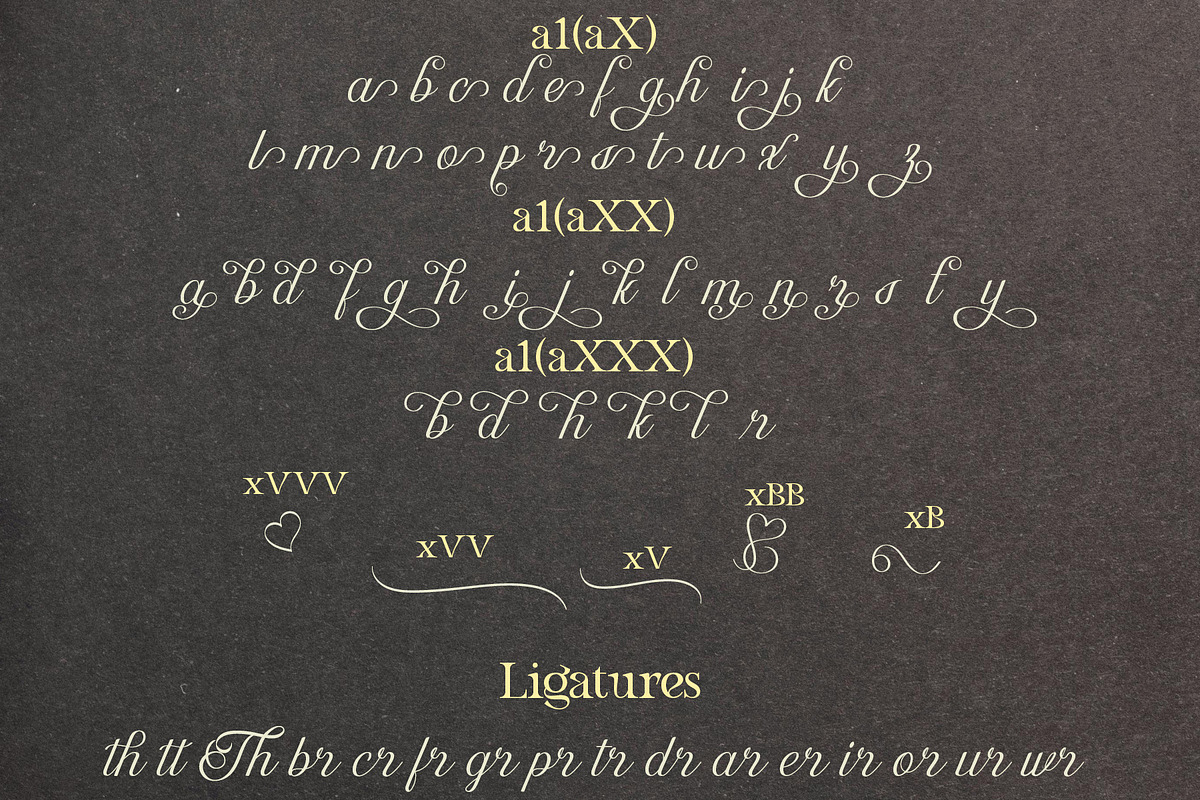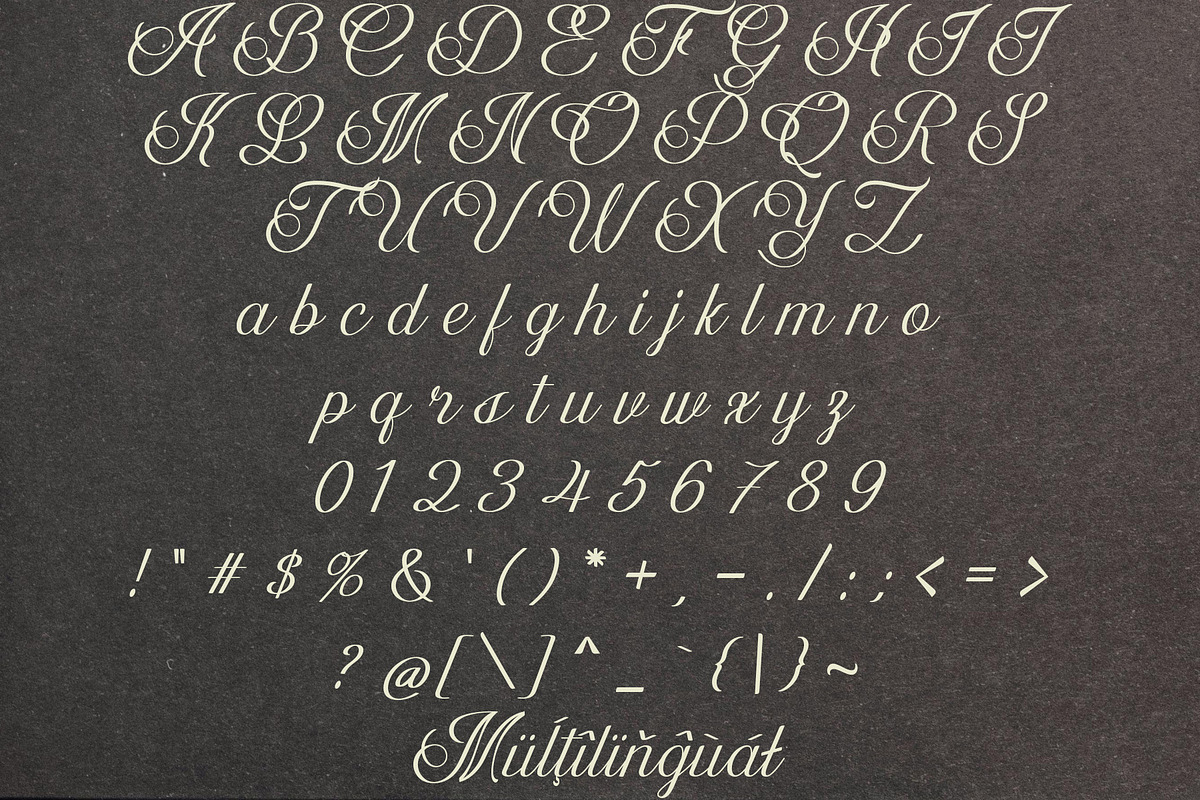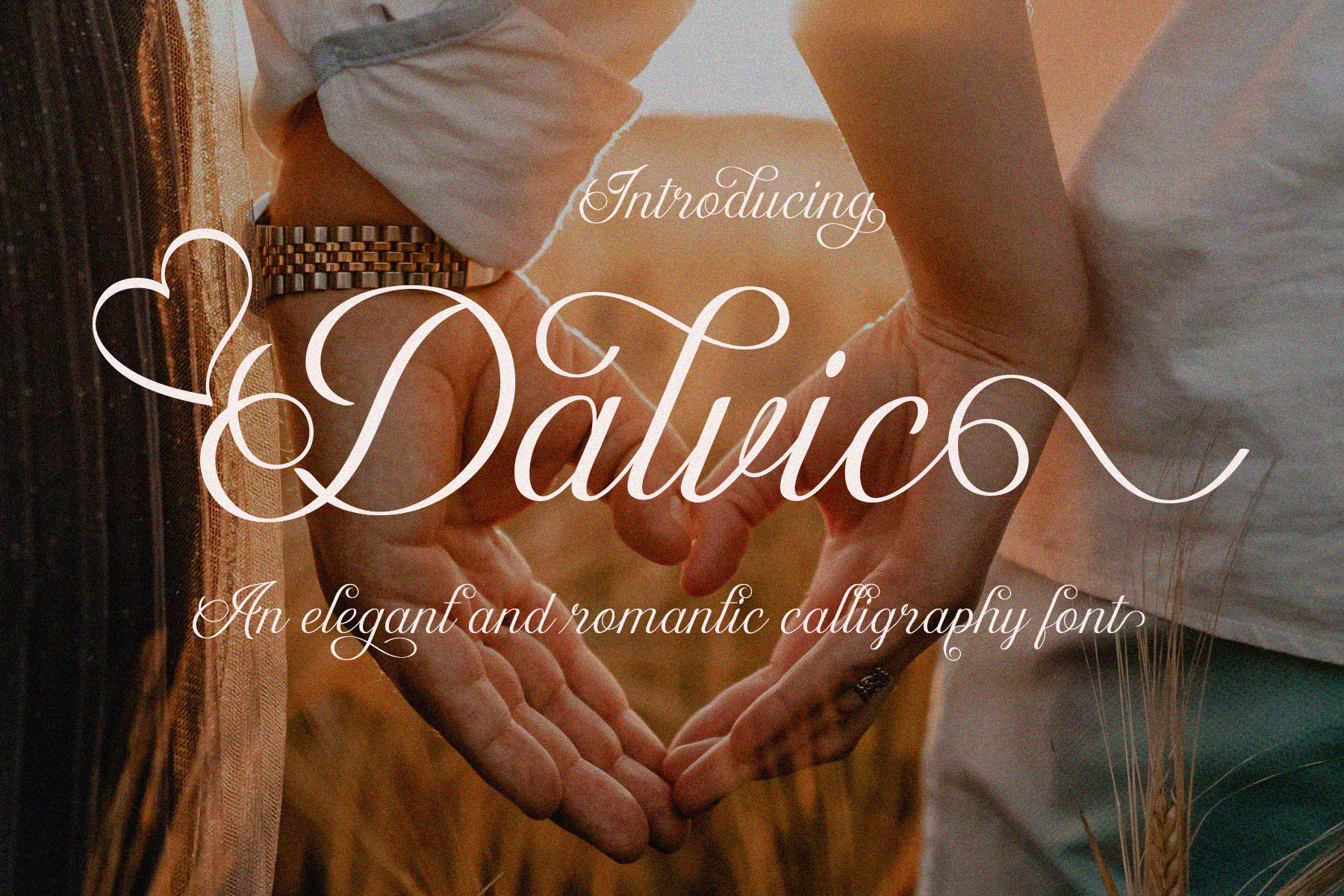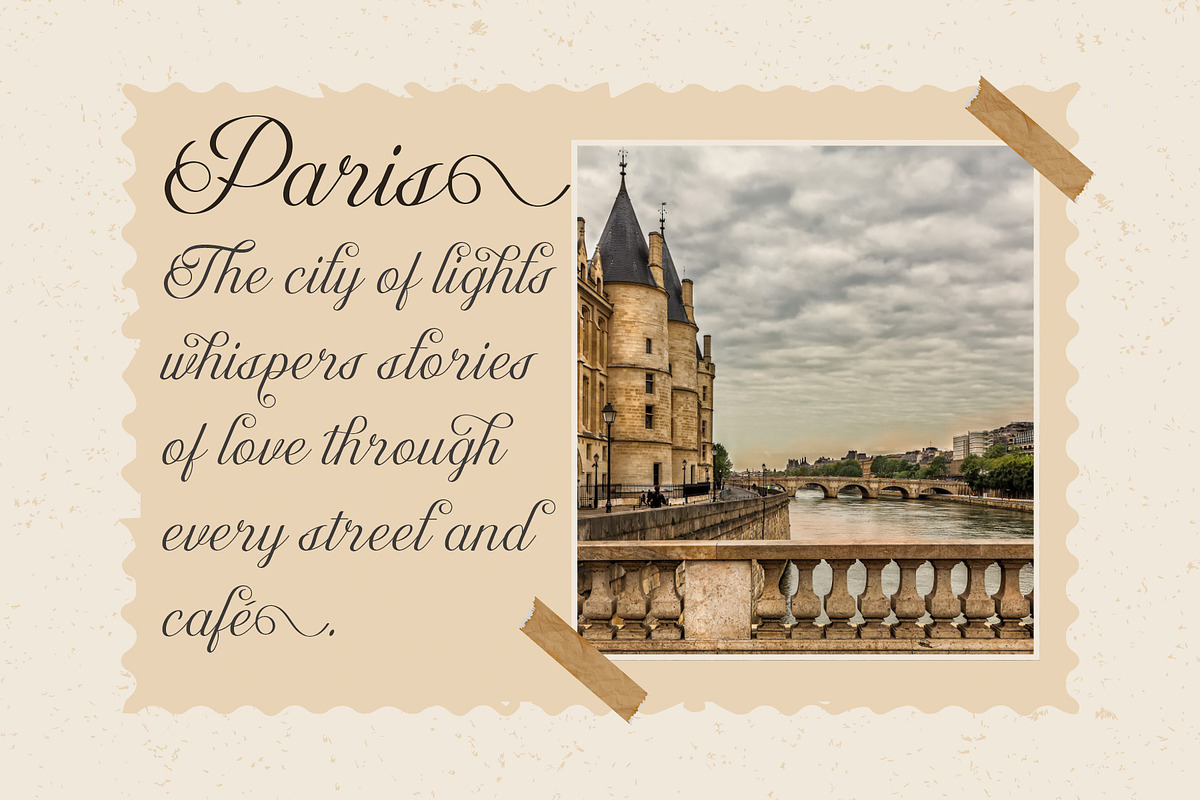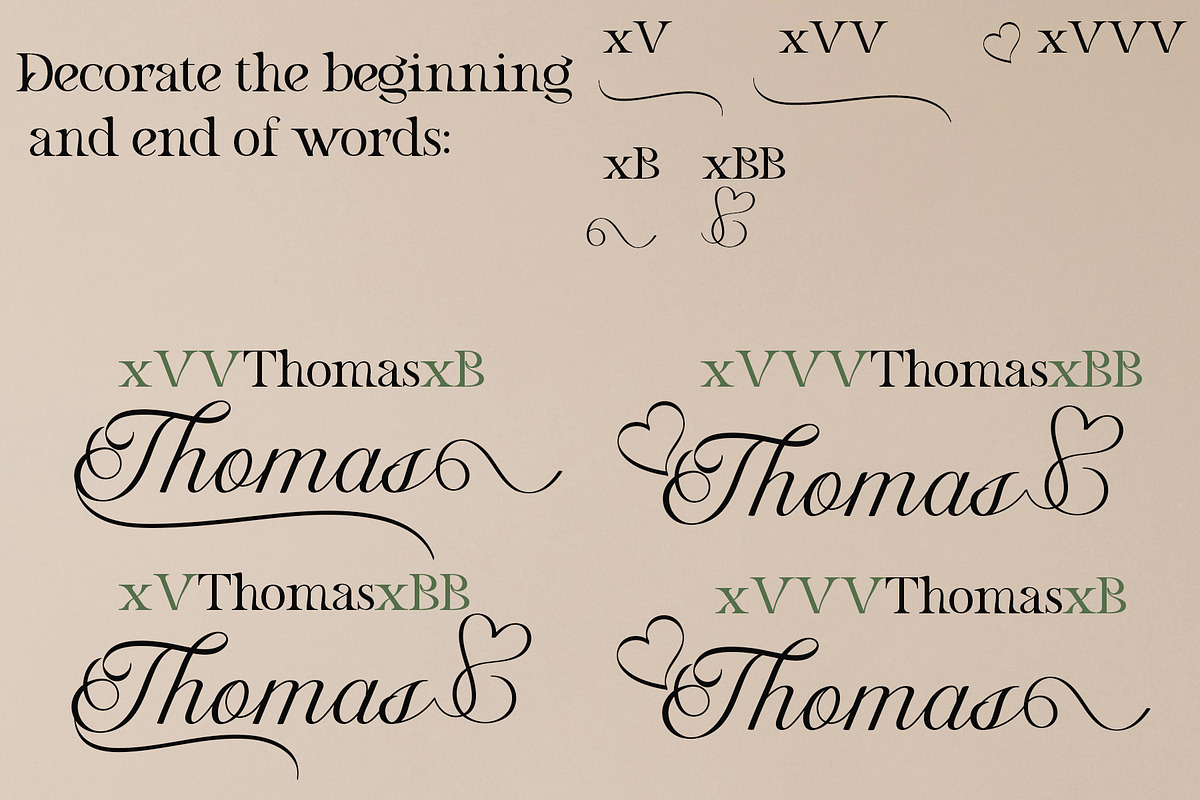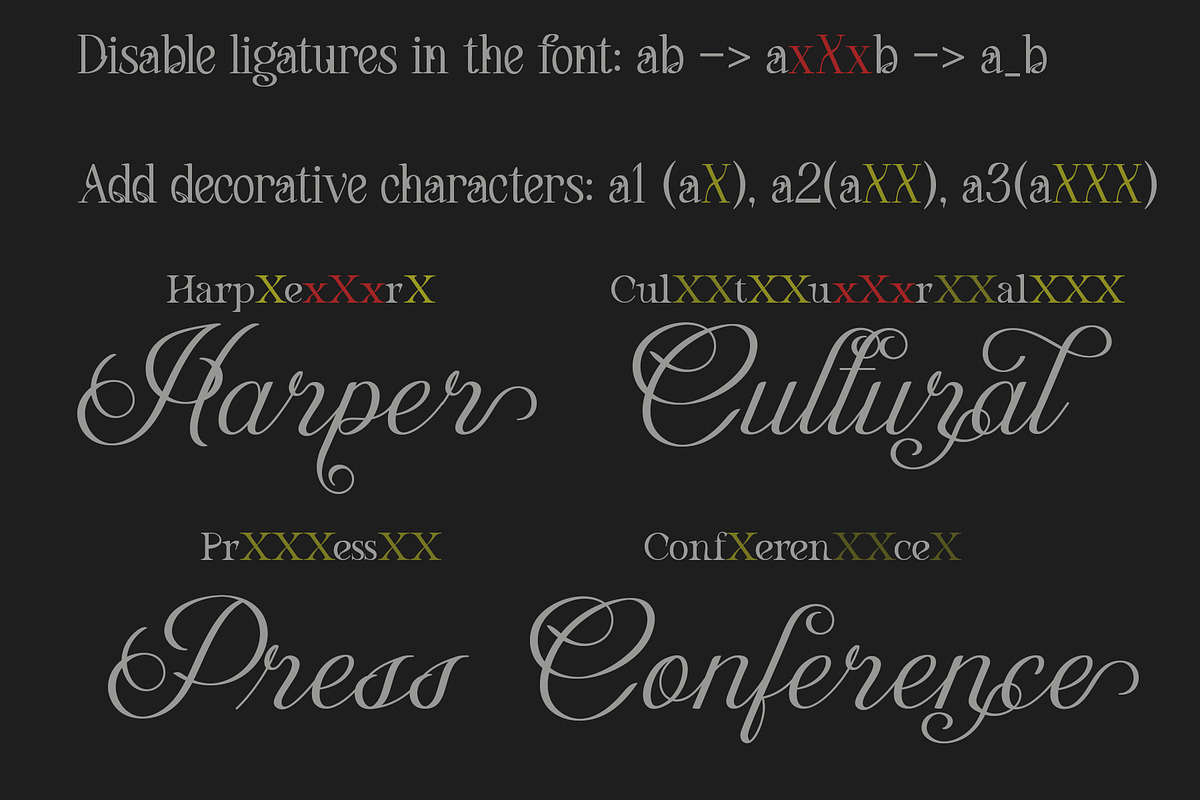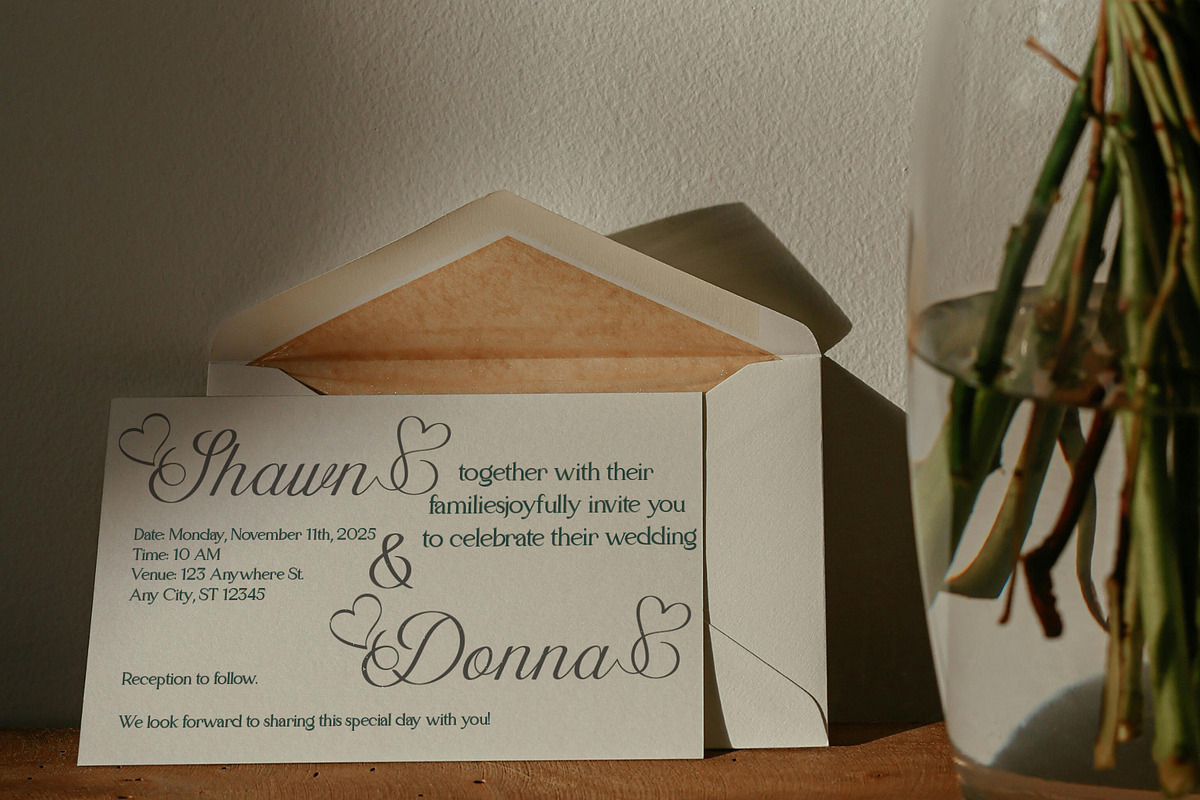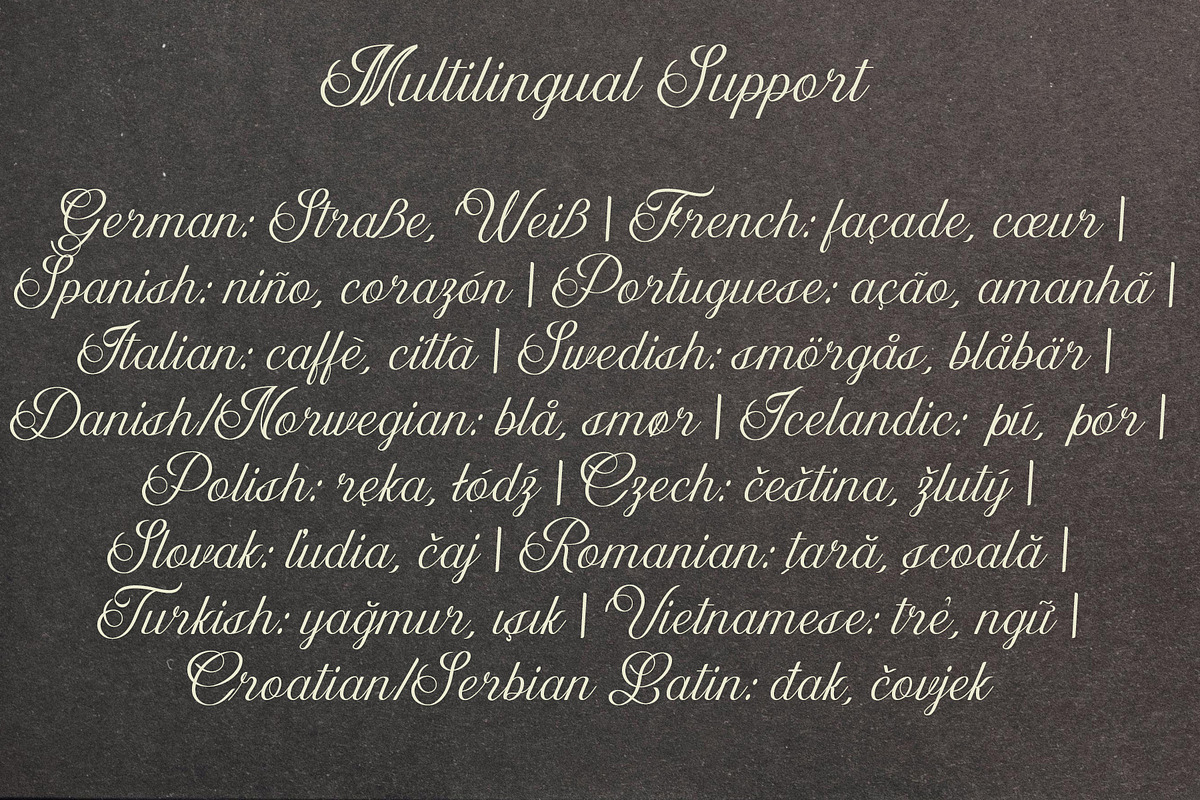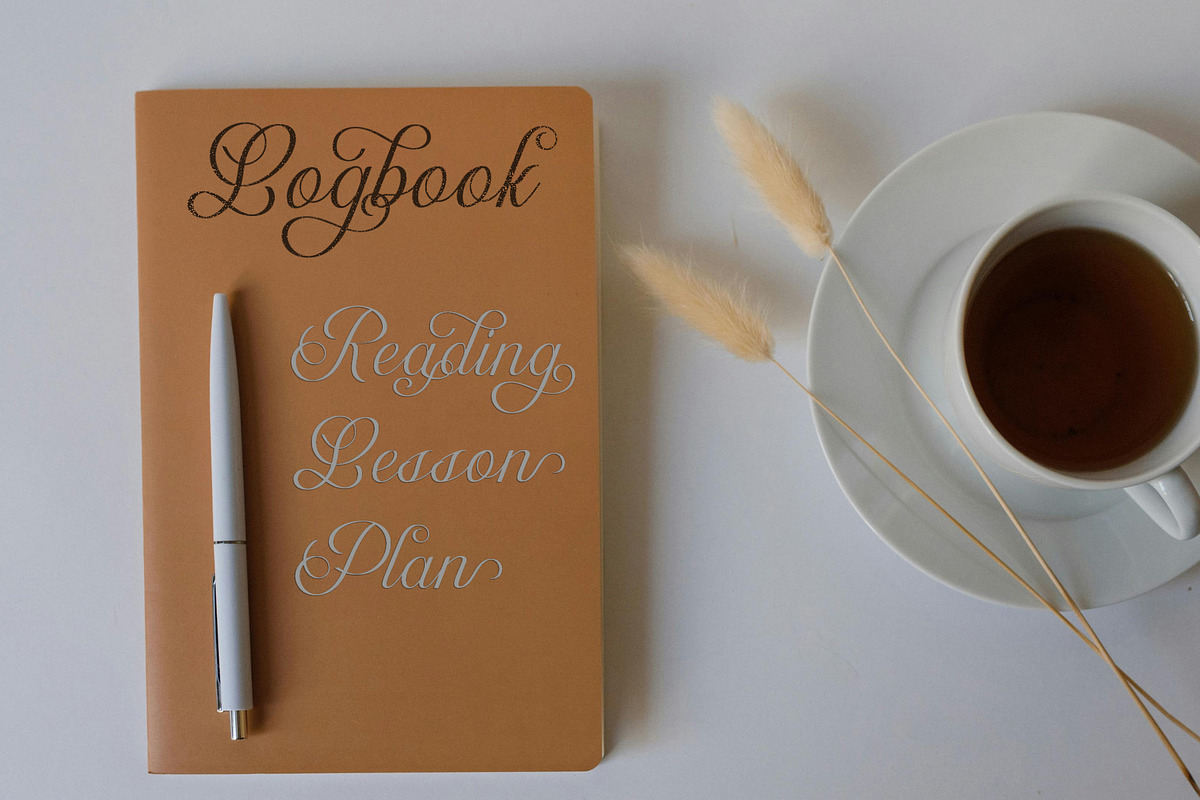
Dalvic – Calligraphy Font
Introducing Dalvic!
Dalvic is an elegant and romantic calligraphy font designed with graceful curves and luxurious swashes. Its flowing strokes and delicate details make every word feel special and expressive. Perfect for wedding invitations, branding projects, feminine logos, quotes, greeting cards, and any design that needs a touch of sophistication.
Dalvic includes beautifully crafted alternates, ligatures, and charming heart-themed swashes that add personality and style. With its timeless handcrafted look, this font brings both beauty and warmth to your creative work.